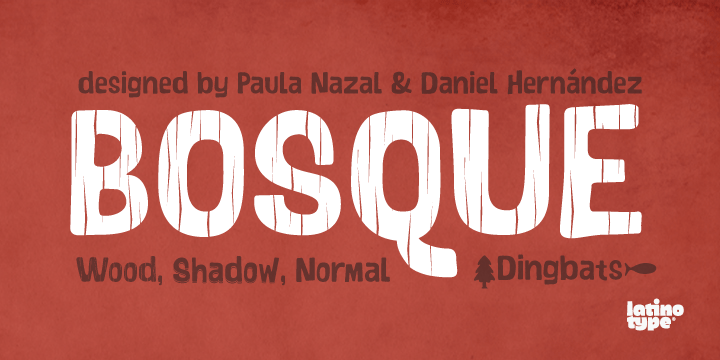
Bosque Font is perfect for forest conservation campaigns, outdoor adventure branding, eco-tourism marketing, nature retreat centers, camping equipment packaging, woodland educational materials, environmental organizations, and natural wilderness communications.
What makes Bosque Font exciting is its authentic wilderness character that beautifully captures the ancient wisdom and untamed beauty of deep forest environments through typography that grows from the earth like mighty trees reaching toward the sky. The organically crafted letterforms showcase natural textures with woodland characteristics that evoke memories of towering canopies, dappled sunlight, and the profound peace that comes from walking among ancient groves where time moves at nature's gentle pace. This extraordinary typeface embodies forest wisdom, natural harmony, and environmental stewardship, making it the perfect choice for organizations and brands that celebrate the sacred relationship between humanity and wilderness and want typography that reflects their commitment to protecting our planet's precious forest ecosystems.
The Bosque Font family includes regular weight with complete uppercase and lowercase character sets, numerals, punctuation marks, and forest decorative elements. The comprehensive glyph collection features woodland symbols, natural alternates, and tree-inspired ornaments that enhance the authentic forest aesthetic across all environmental and outdoor design applications.
The naturally balanced letter spacing and woodland construction make Bosque Font highly effective across both intimate nature publication applications and large-scale forest preserve signage displays. Its wilderness character ensures seamless integration into environmental projects while maintaining excellent readability for outdoor communication needs. From trail markers to conservation foundation materials, this font consistently delivers the perfect forest touch that honors the ancient wisdom of trees and woodlands.